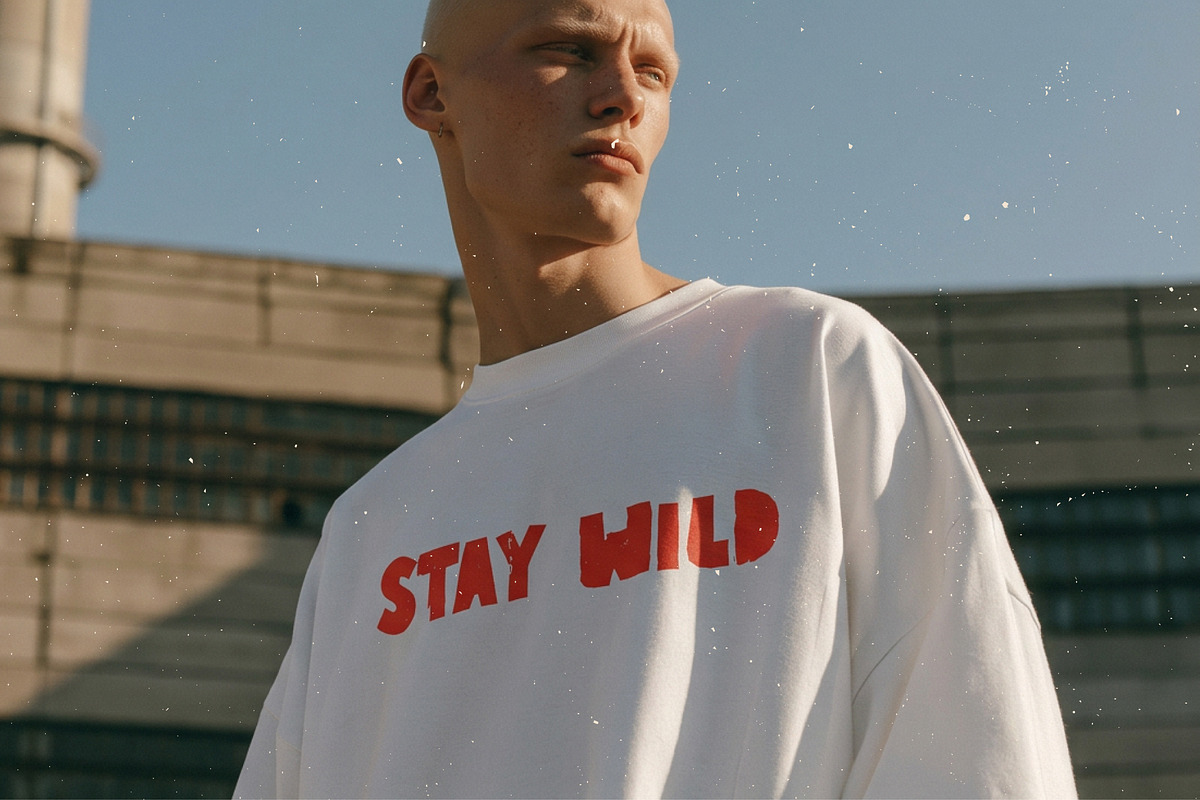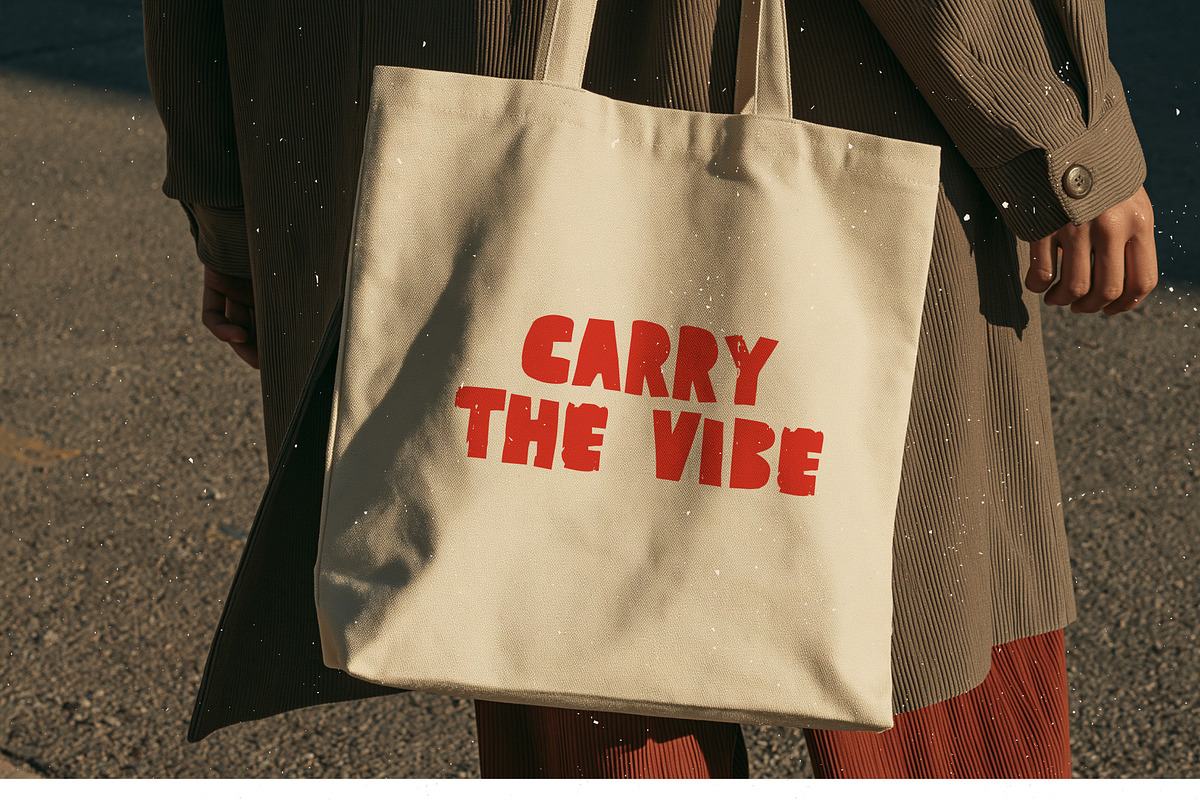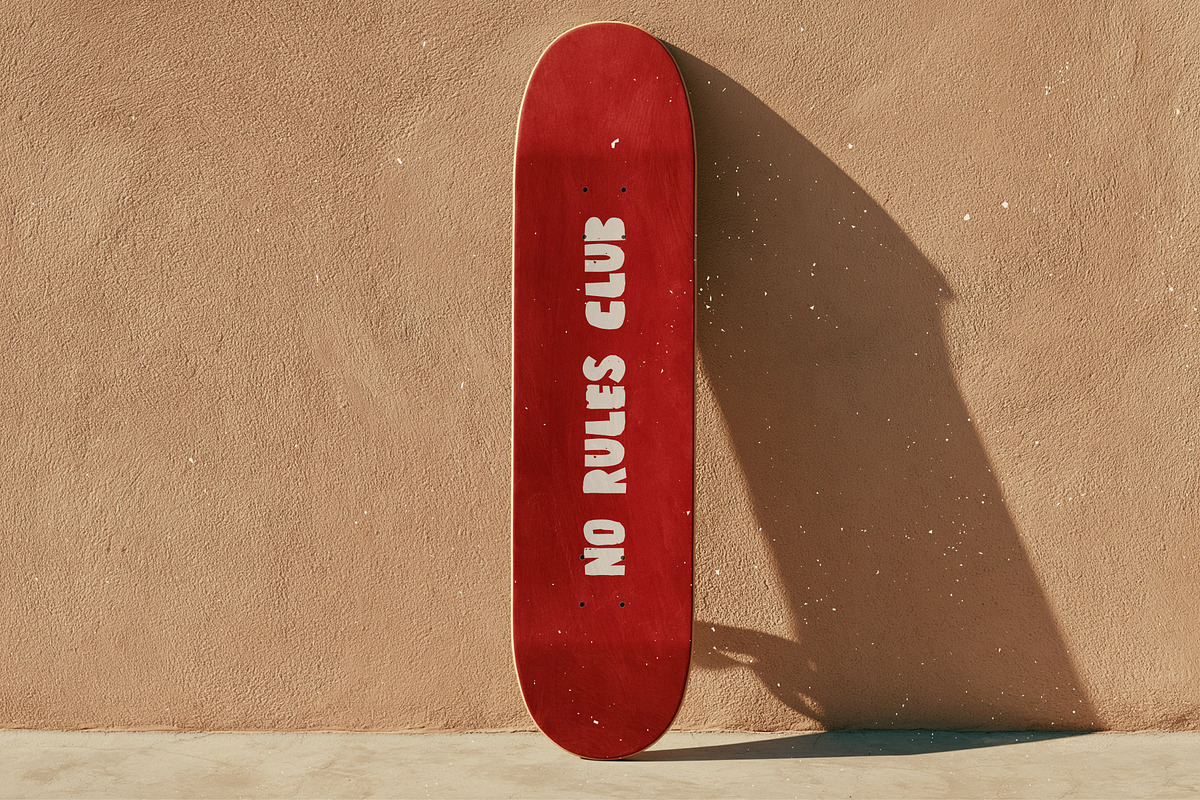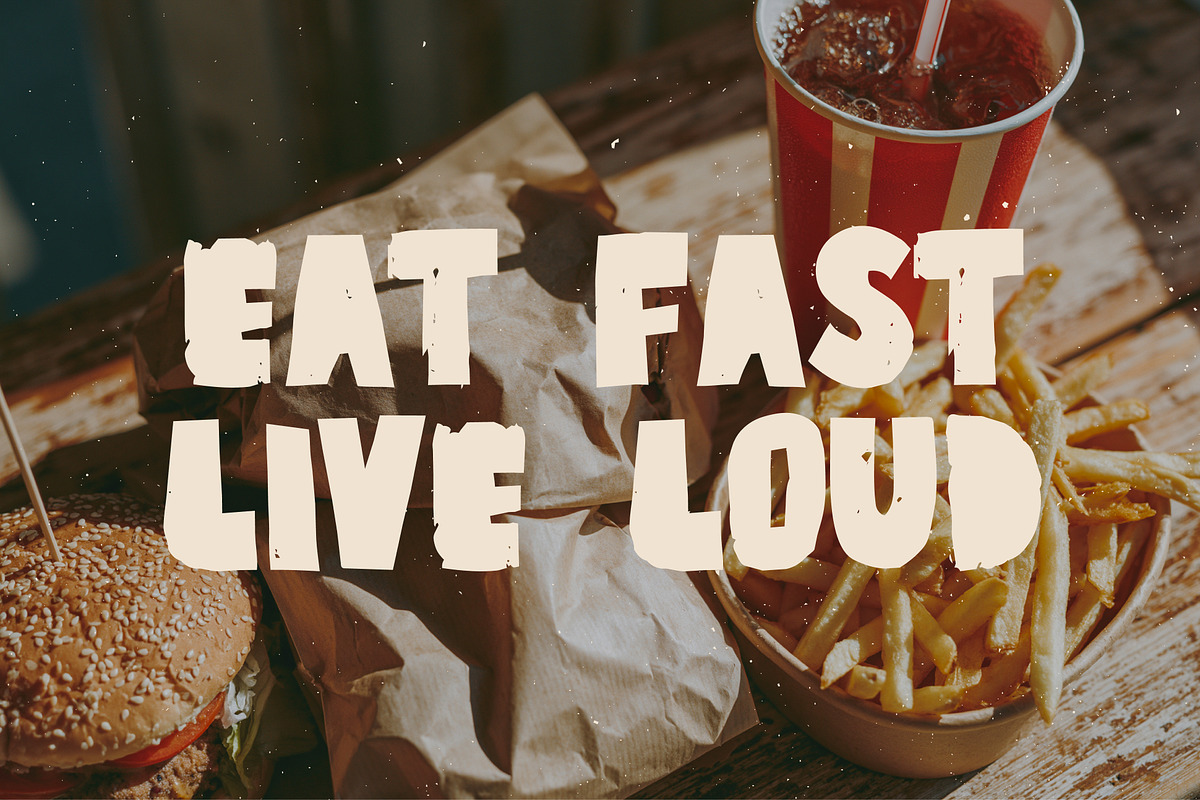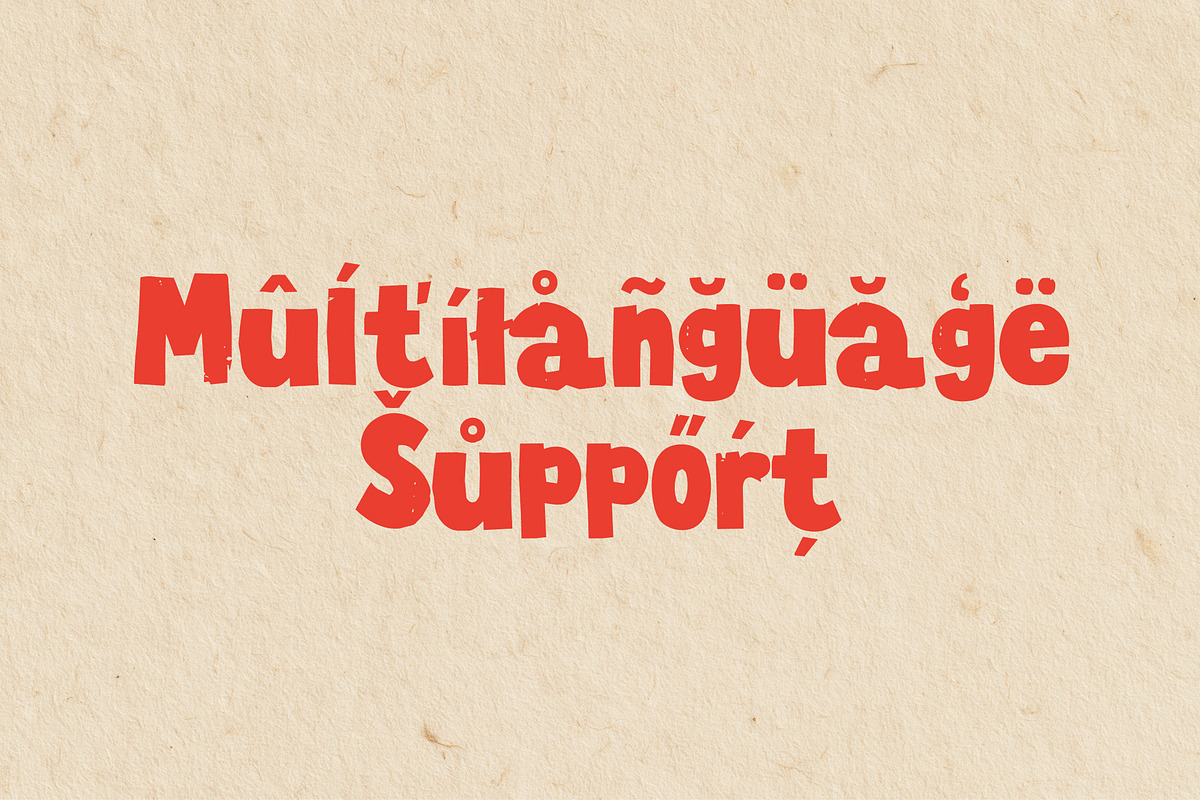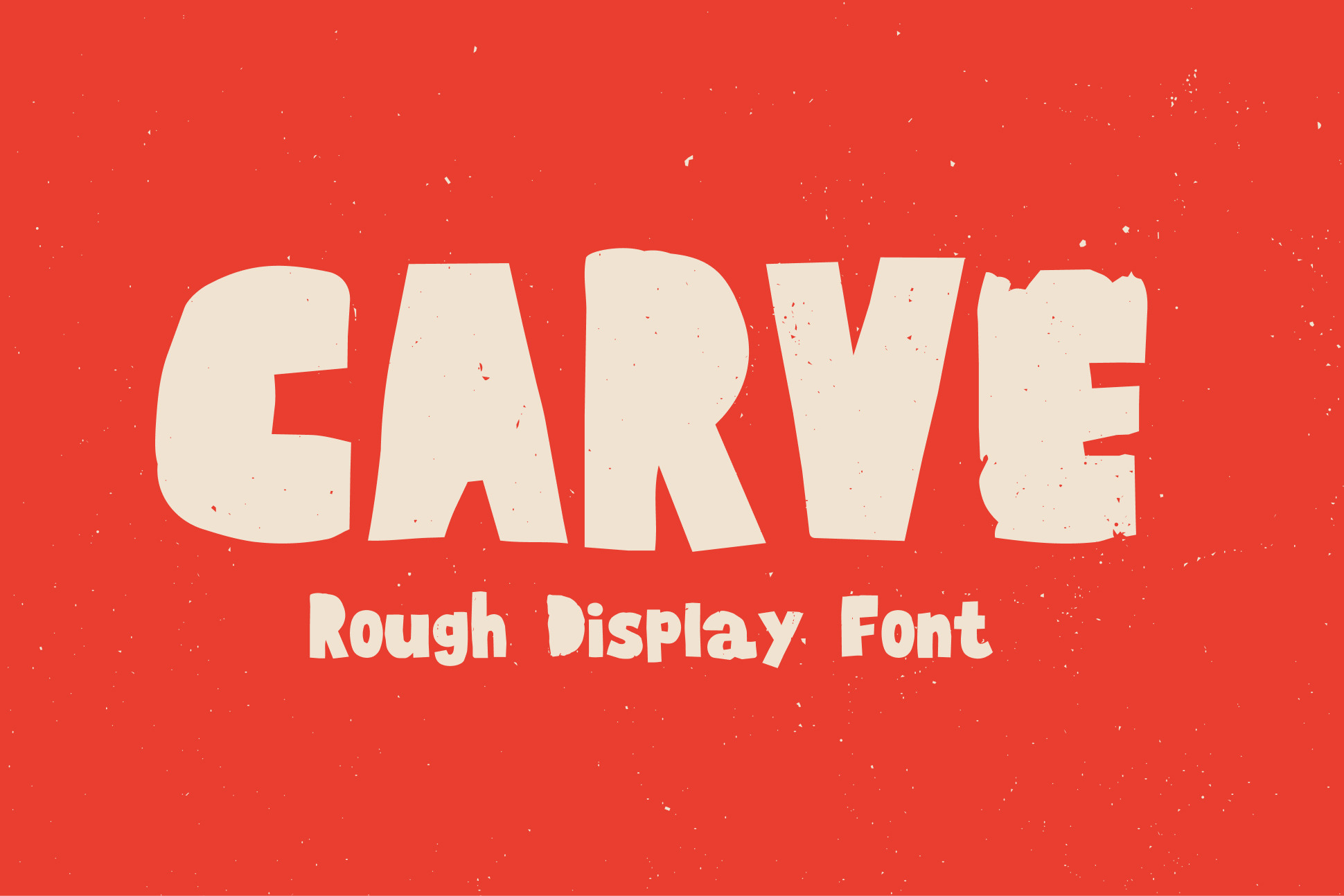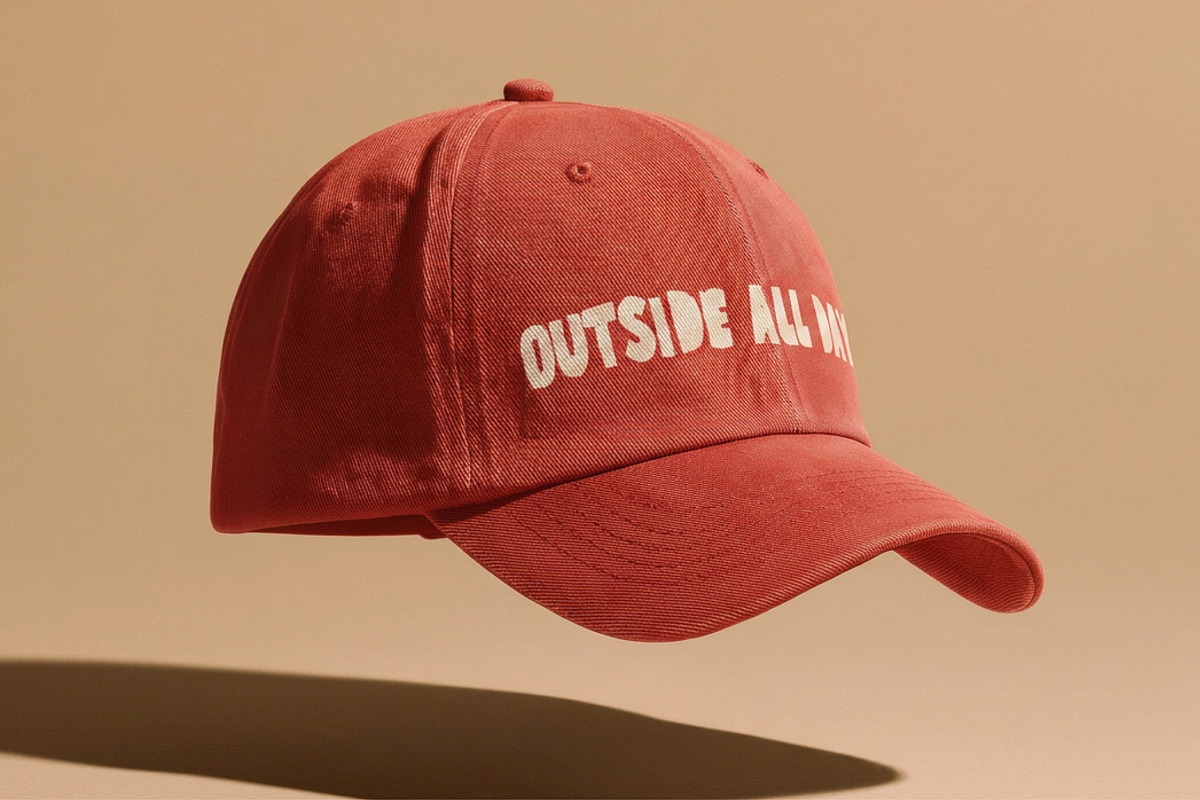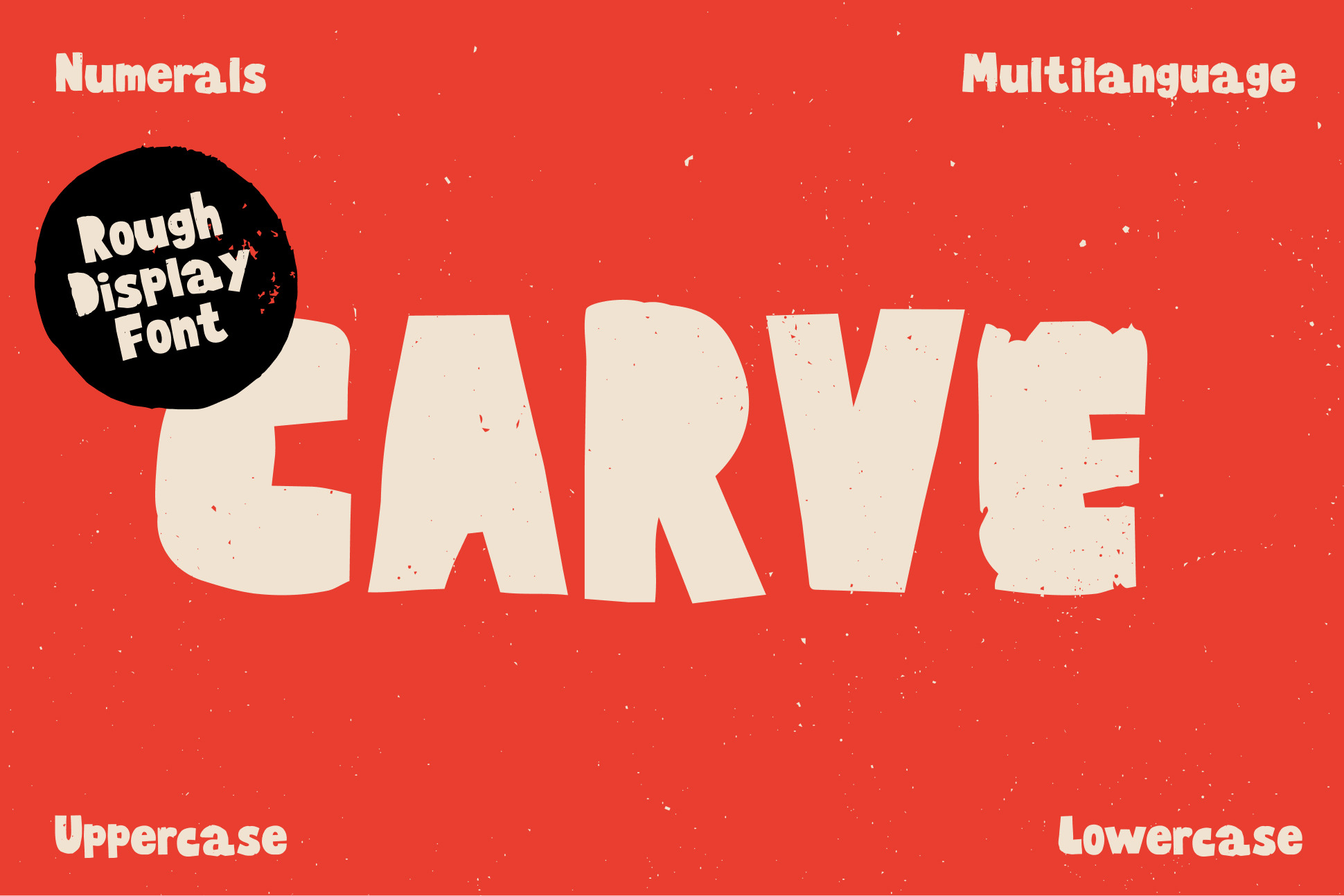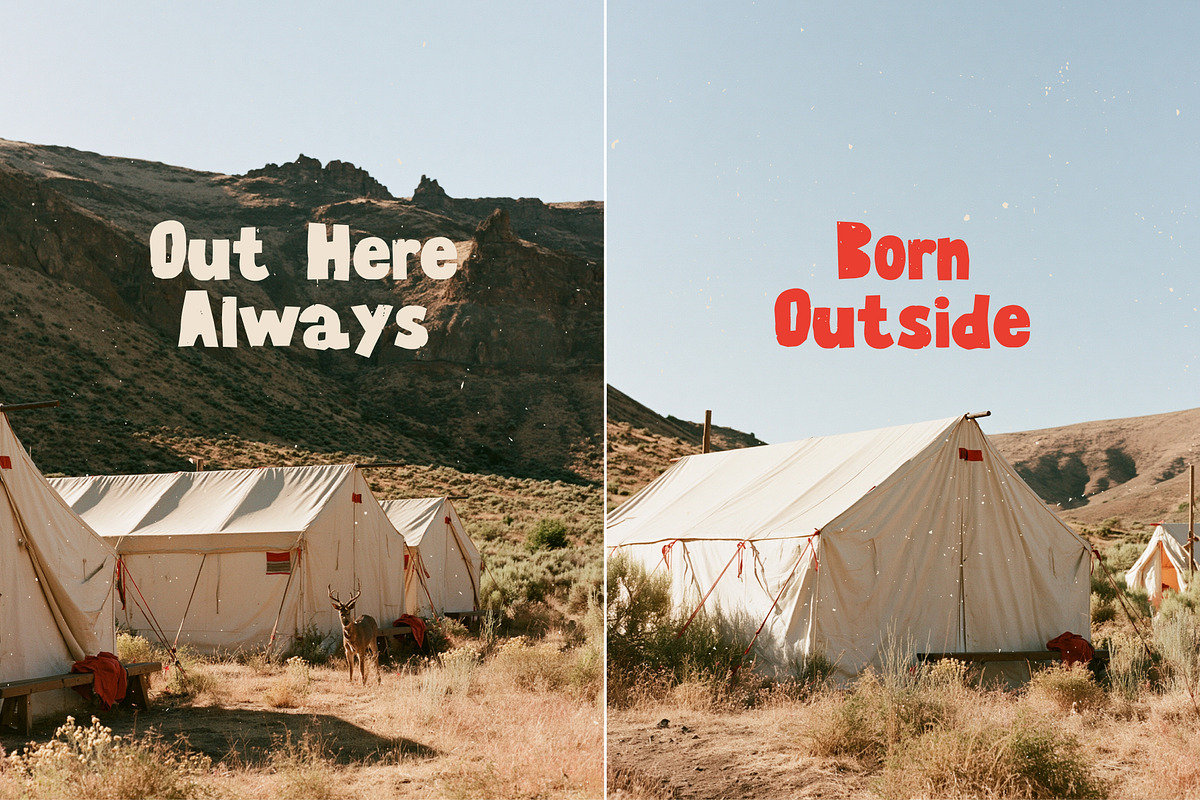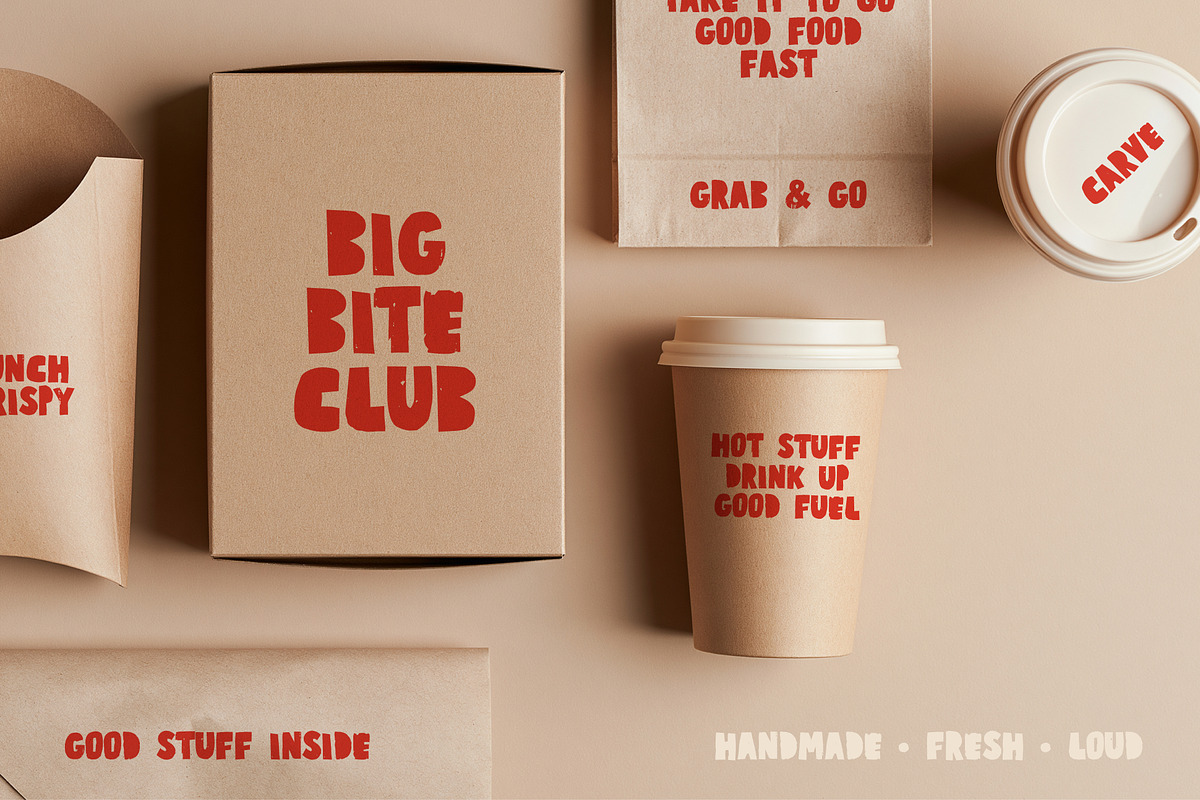
CARVE Rough Display Font
CARVE is a bold, rough display typeface with raw edges, irregular shapes and a strong handmade character. Its distressed letterforms give every word an expressive, energetic look inspired by hand-cut lettering, vintage posters, screen printing and DIY graphics.
Designed for bold headlines, posters, branding, packaging, merchandise, music artwork, streetwear, food projects, editorial layouts and creative campaigns.
Uppercase and lowercase Latin alphabet
Extended Latin characters and diacritics
Multilingual Latin support
Numerals 0–9
Standard and extended punctuation
Currency symbols
Mathematical and common symbols
Quotation marks and brackets
Distressed handmade letterforms
Optimized for large display typography
CARVE works best at large sizes where its rough texture, irregular details and bold personality can stand out.